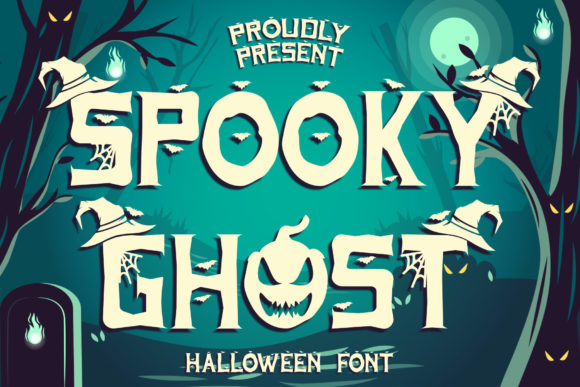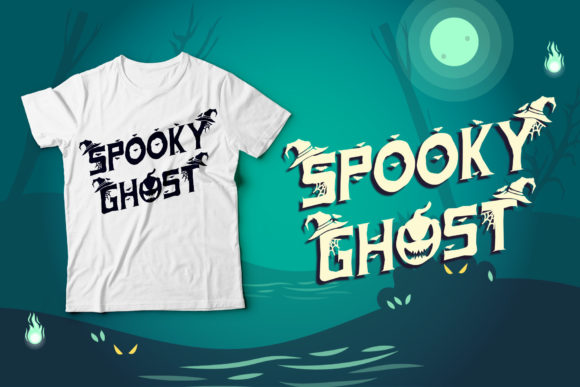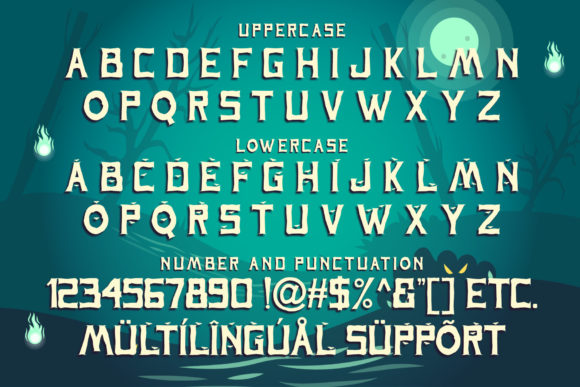
Spooky Ghost Font
Spooky Ghost is a cool, fun, and quirky decorative font. This font is PUA encoded which means you can access all glyphs and swashes with ease!
Add it confidently to your favorite Halloween designs and let yourself be amazed by the outcome generated.